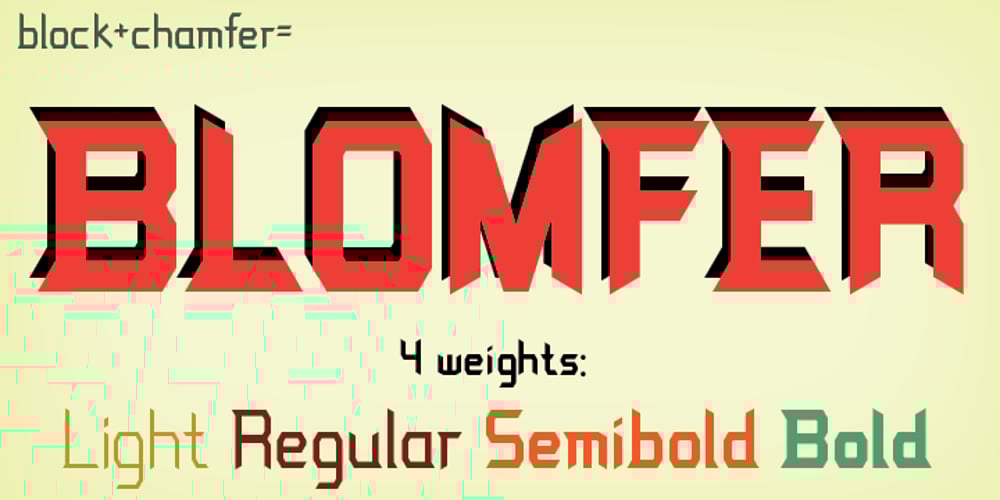
Blomfer Font Family was designed by Justin Daniels and published by Creative Juncture. Blomfer contains 4 styles and family package options. Blomfer is a simple, yet dynamic Graphic Typeface based on the chamfering of a simple block font. The design element of the chamfered corners also expresses as the opposite, protruding seraph like corners and angled terminations to ascenders and descenders. It is available in four weights all of which contain many glyphs that includes accents, ligatures, and mathematic symbols to meet the needs of most latin languages.